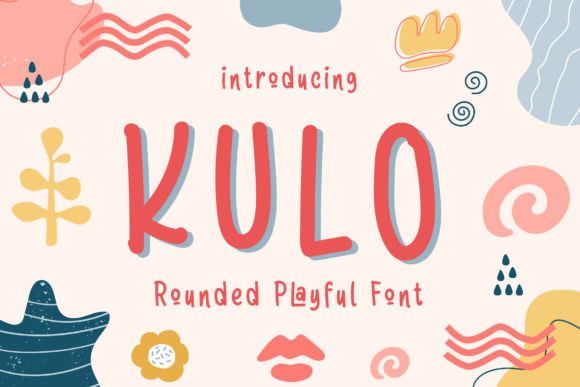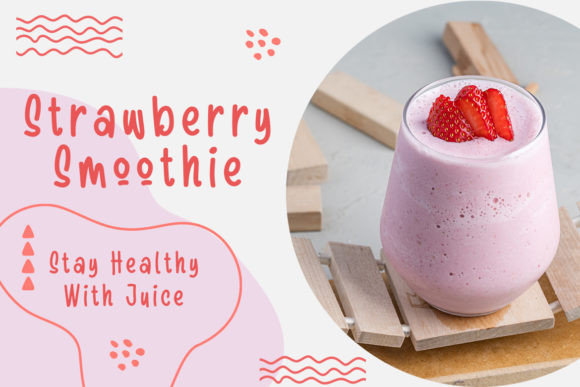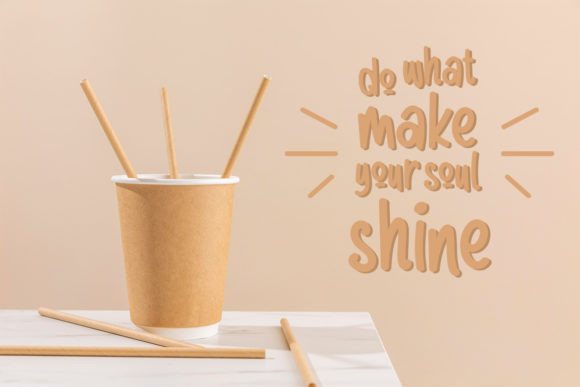
Kulo Font
Kulo is a playful and cute display font. It embodies joy and authenticity and is the perfect choice for any children activity or school project.